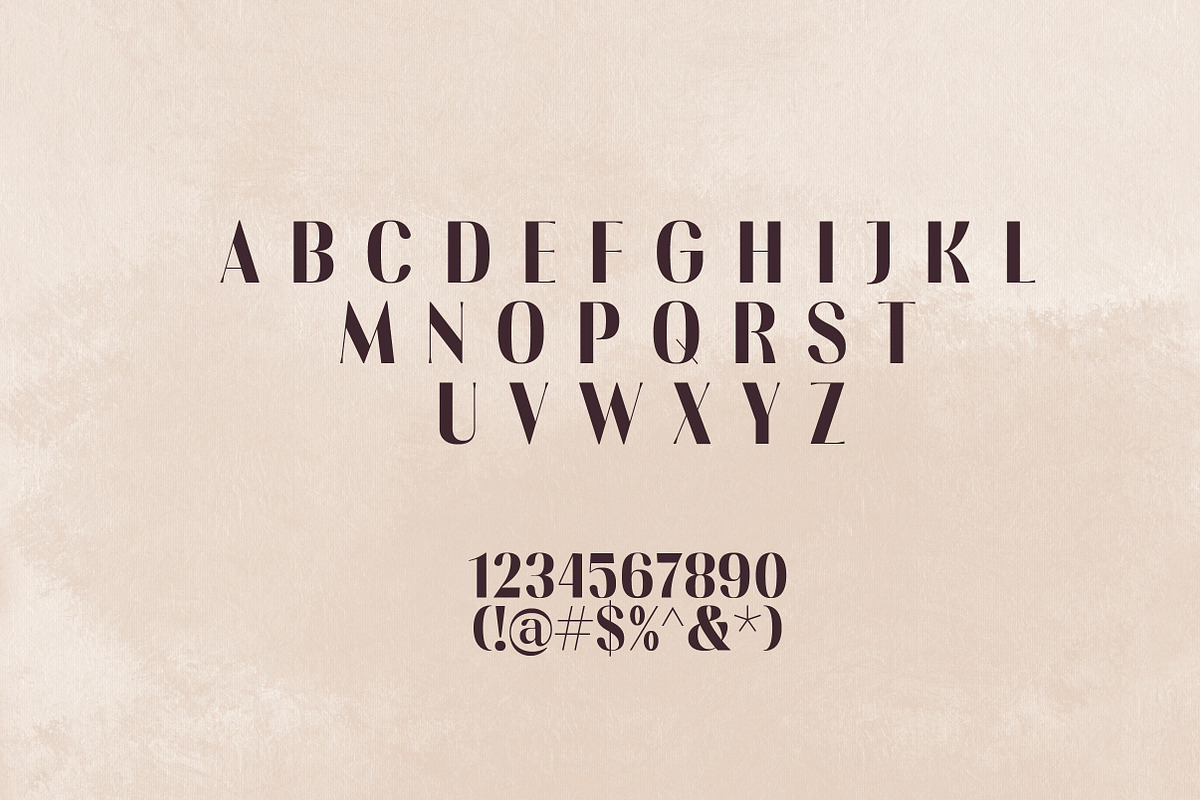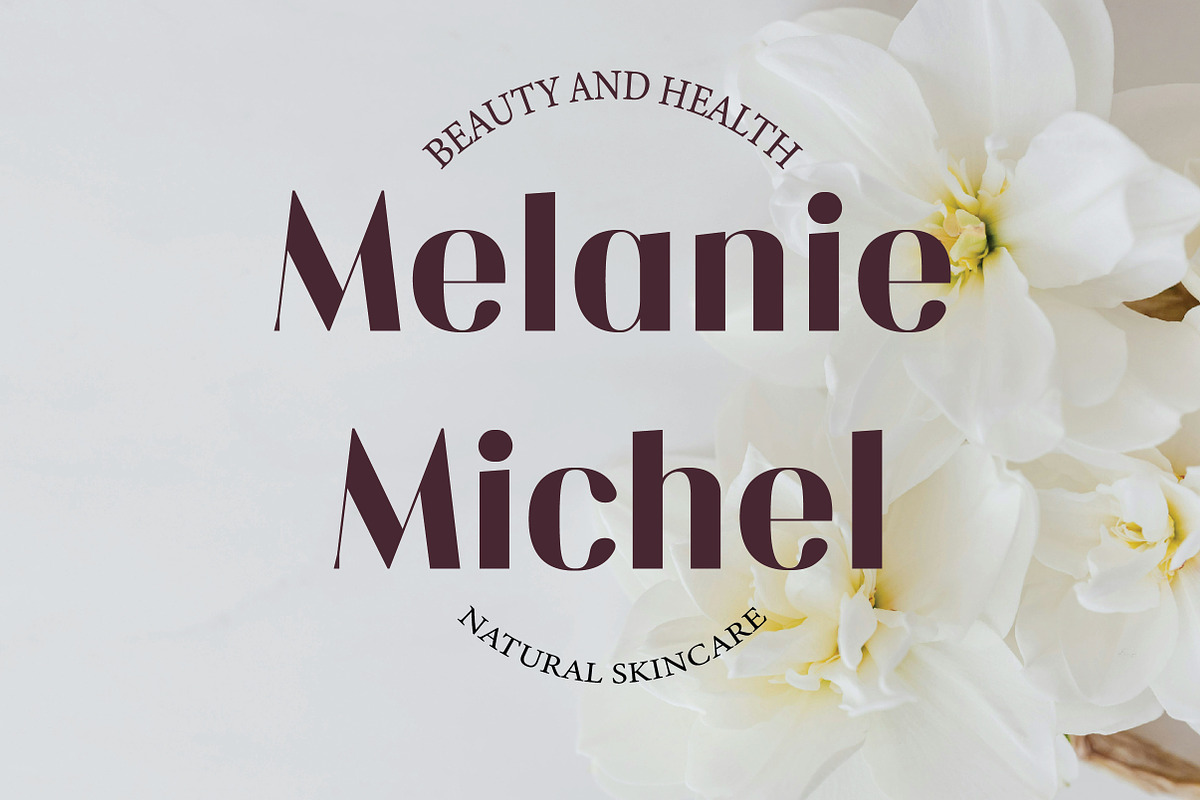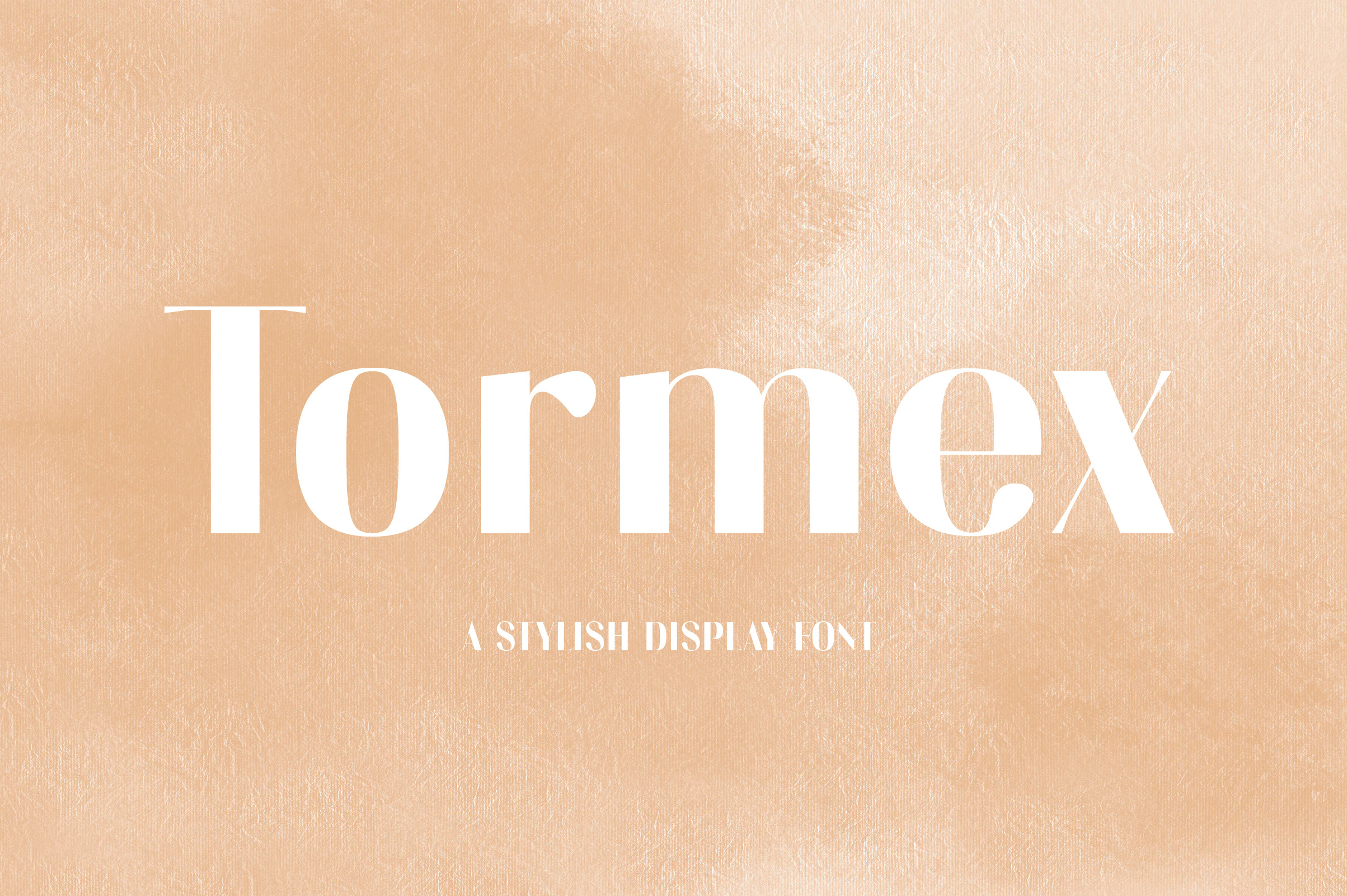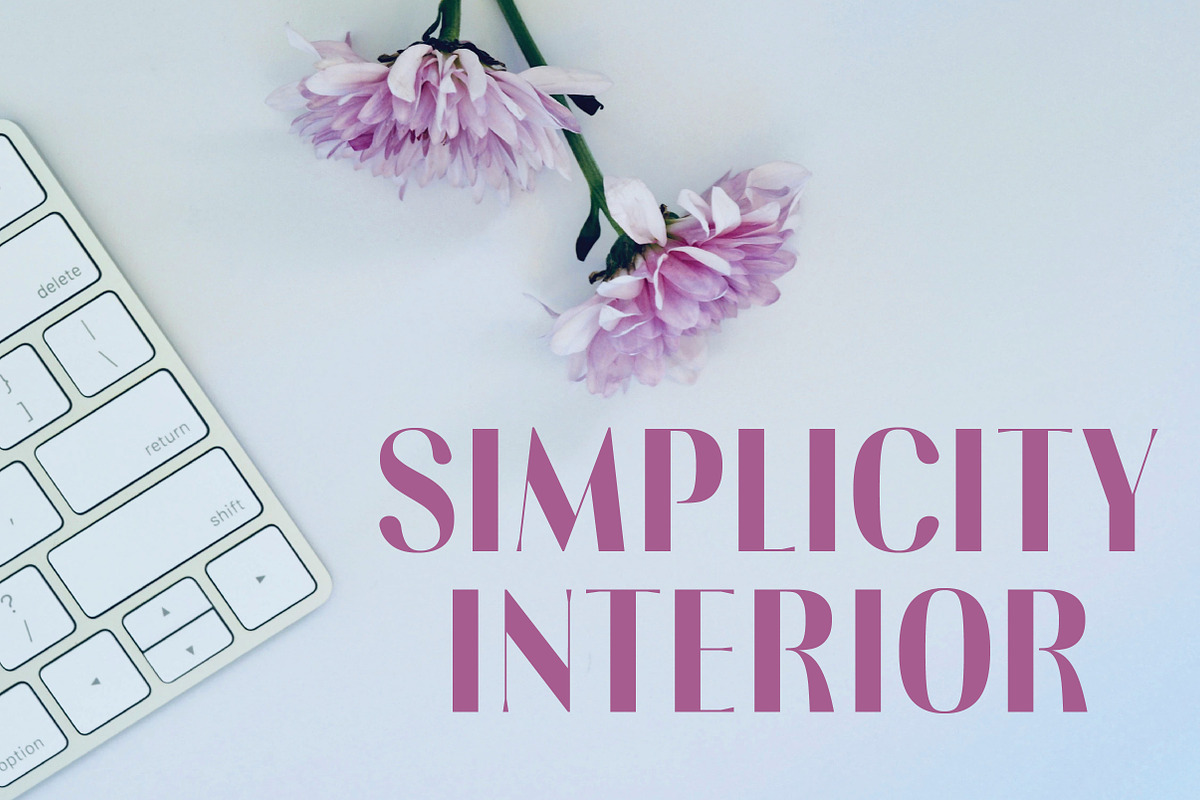
Tormex | Modern Sans Serif Font
Tormex is a strong and confident sans serif typeface with a modern edge. Designed in a clean Regular style, it features bold letterforms, sharp geometry, and smooth spacing, making it perfect for branding, headlines, logos, posters, and digital interfaces.
Tormex balances power and precision, giving your designs a contemporary look with a professional tone. Its simplicity ensures versatility, while its structure adds just the right amount of personality to make your text stand out.
Tormex is the ideal choice for modern designers looking for bold clarity and clean style in every word.